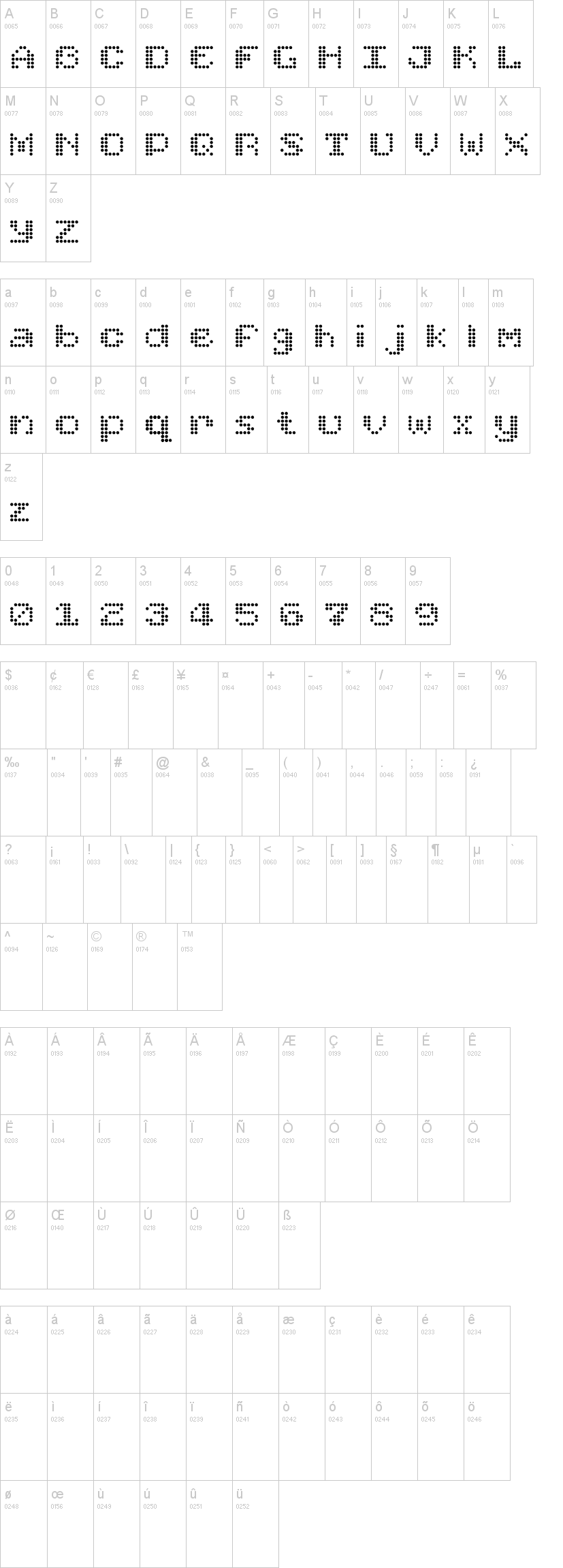
Note of the authorInspired by the idea of found paper objects, this font resembles receipts and is strongly focused on the idea of a grid.
It includes the entire latin alphabet as well as most latin characters.